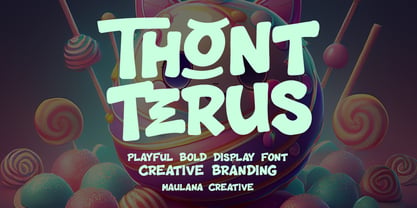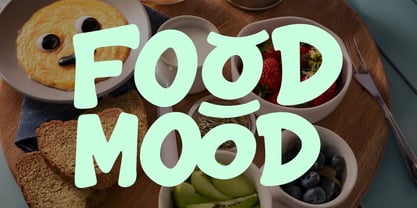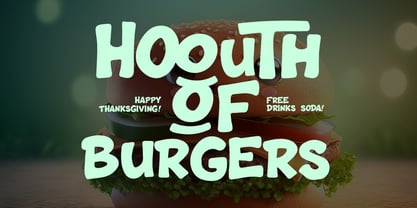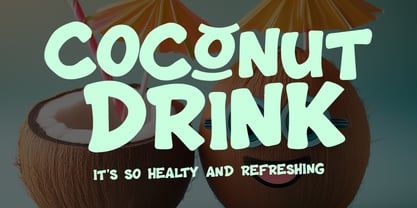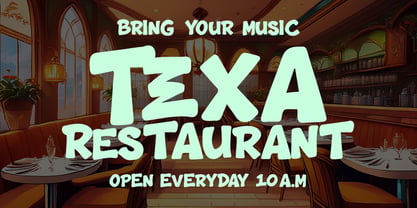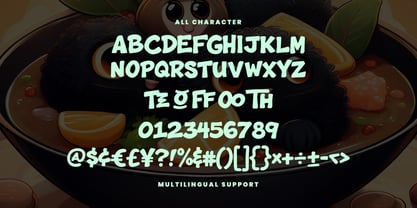
MC Thont Terus
par Maulana Creative
La famille de polices MC Thont Terus a été conçue par Gilang Maulana et publiée par Maulana Creative. MC Thont Terus contient 1 styles. En savoir plus sur cette famille
Inject a dose of fun and energy into your designs with Thont Terus, a playful bold display font designed to stand out! With its chunky, hand-drawn feel and unique character alternates and ligatures, this font is perfect for projects that need a friendly yet impactful personality. Whether you are designing a vibrant brand identity, catchy food packaging, or engaging social media graphics, Thont Terus offers a quirky aesthetic that instantly grabs attention. Its thick strokes and bouncy rhythm make it ideal for headlines, social media, children's books, and restaurant menus.
Concepteurs: Gilang Maulana
Fonderie: Maulana Creative